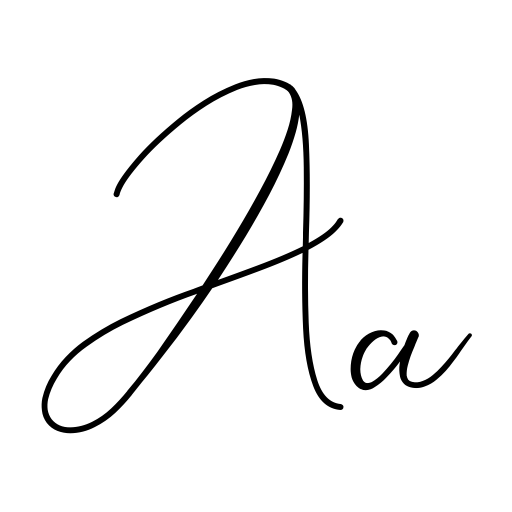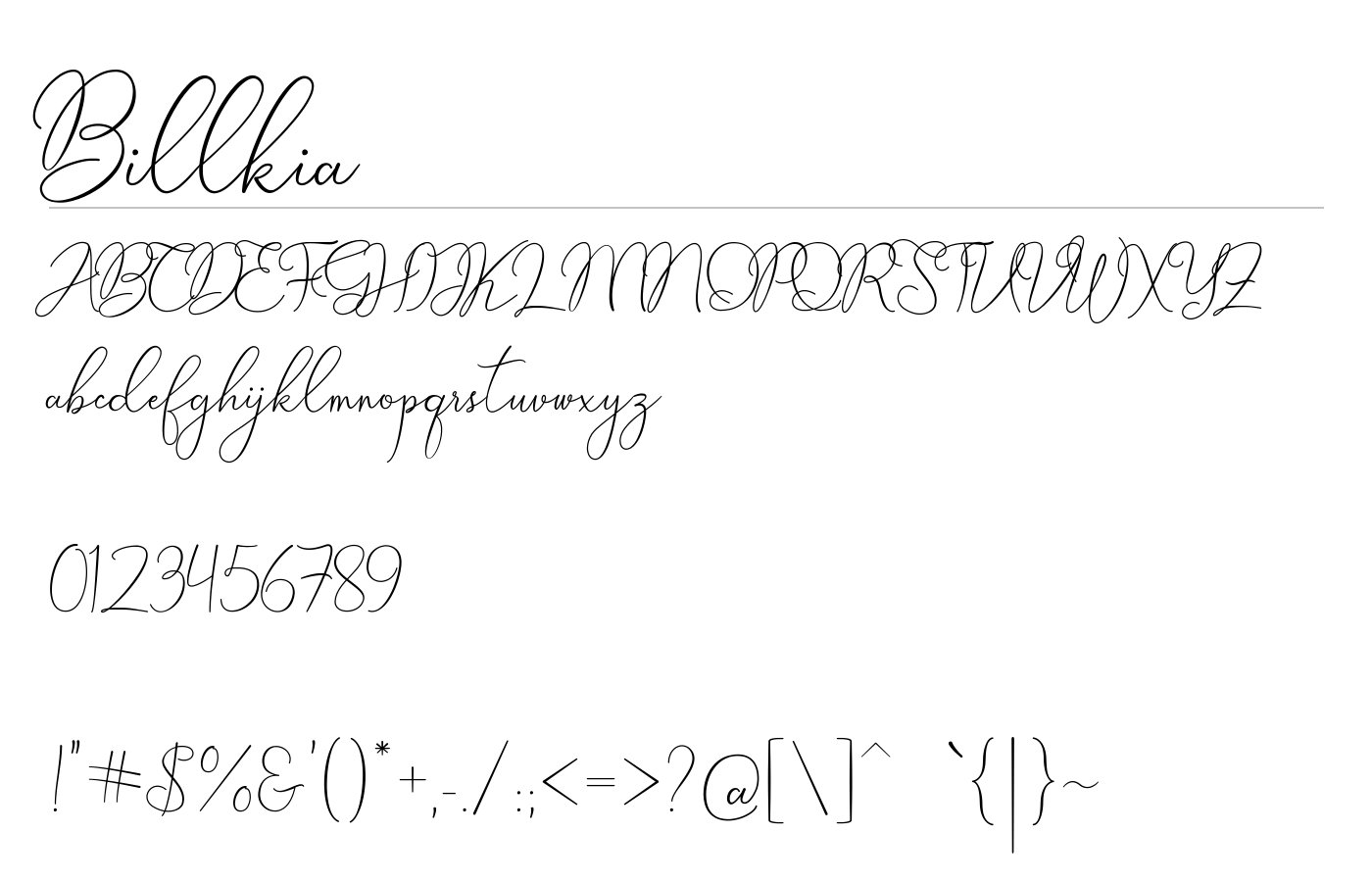
Billkia is an elegant, delicate script font characterized by its thin, flowing lines and graceful swashes, giving it a refined and sophisticated feel. It works beautifully for wedding invitations, luxury branding, or any design needing a touch of romance and charm, thanks to its intricate uppercase letters and smooth lowercase forms. This font’s airy and stylish appearance makes it perfect for adding a personal, handwritten touch to headlines and decorative text.
Billkia Font